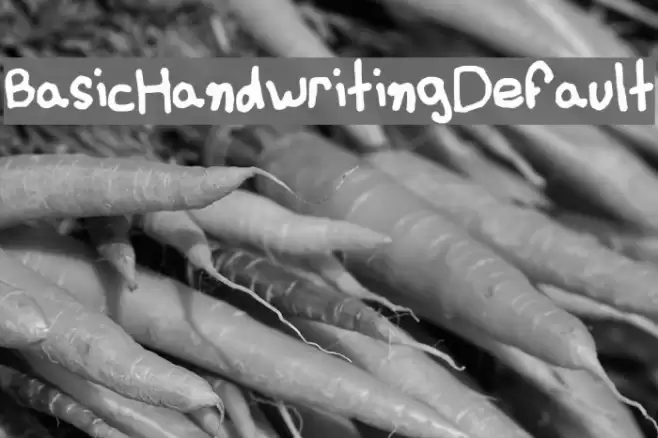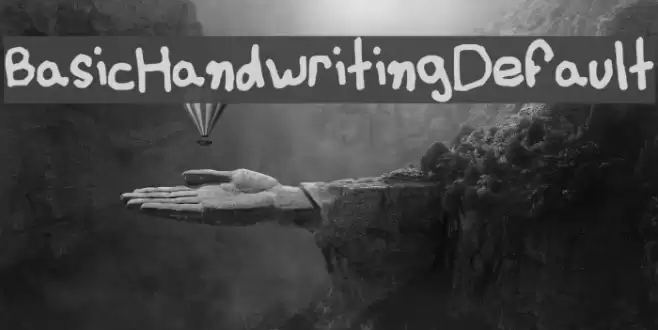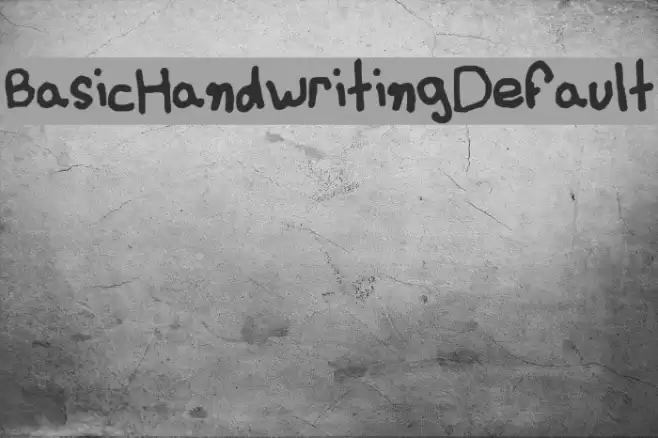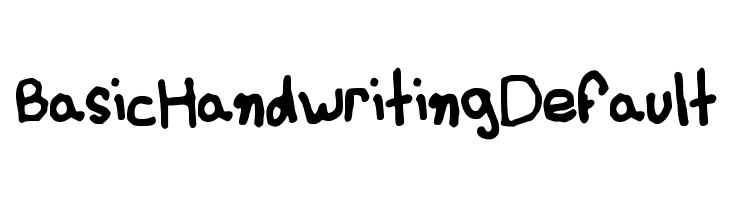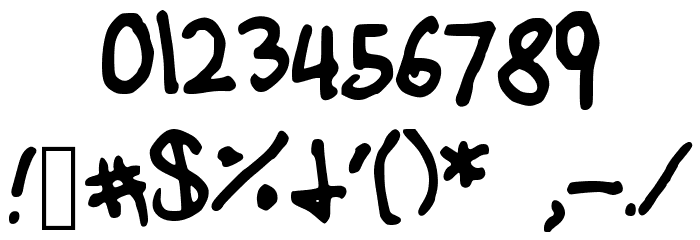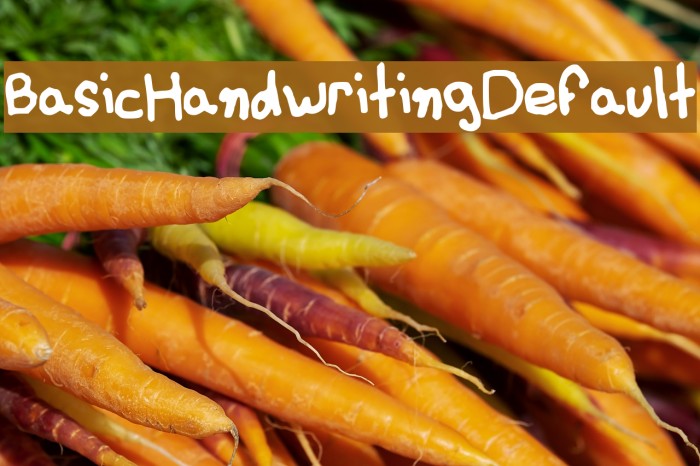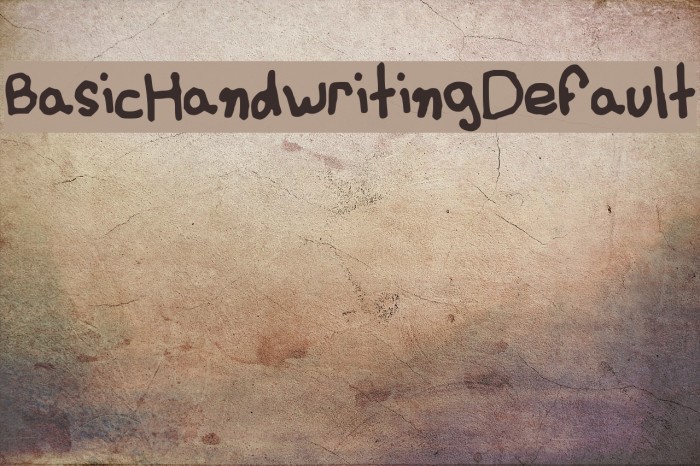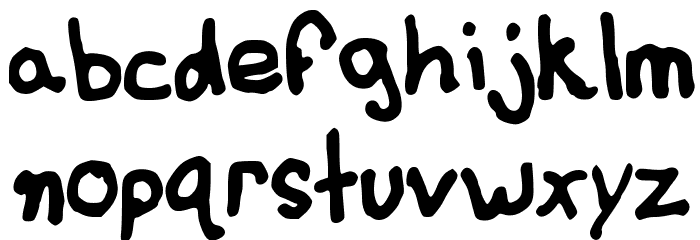
BasicHandwritingDefault Font
BasicHandwritingDefault Description
This font embodies a casual, handwritten style with a playful and informal appearance. The characters are bold and rounded, giving them a friendly and approachable feel. The strokes are consistent in thickness, contributing to a uniform look across all characters. The uppercase and lowercase letters maintain a cohesive style, with slightly exaggerated curves and loops that enhance the handwritten aesthetic. Numbers and special characters follow the same design principles, ensuring a harmonious overall appearance. This font is perfect for projects that require a personal touch or a relaxed vibe.
A bold, playful handwritten font with rounded characters from Handwritten fonts.
- Proposed Projects: Ideal for greeting cards, children's books, casual branding, and social media graphics.
- Overall Style: Casual, Playful
- Use Case: Headlines, Informal text, Creative projects